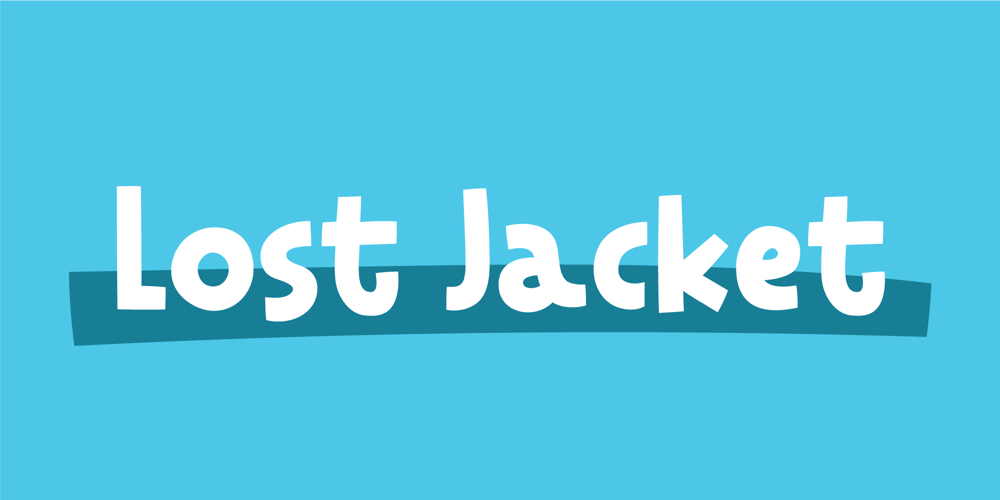
Lost Jacket Font Family was designed by Jakob Fischer and published by PizzaDude.dk. Lost Jacket contains 4 styles and family package options. The name “Lost Jacket” is inspired by a true story about me forgetting a jacket…or rather, I thought that I had lost a jacket…it was just me who forgot where I put it. A kind of embarrassing story, but also very funny.Speaking of funny – I did have fun making this font, and making the graphics to present it. My main focus was comic, fun and games and that is what I’d suggest that you use the font for, but I dare you to use the font for all other kind of things as well 🙂